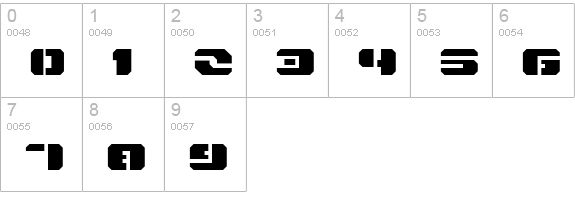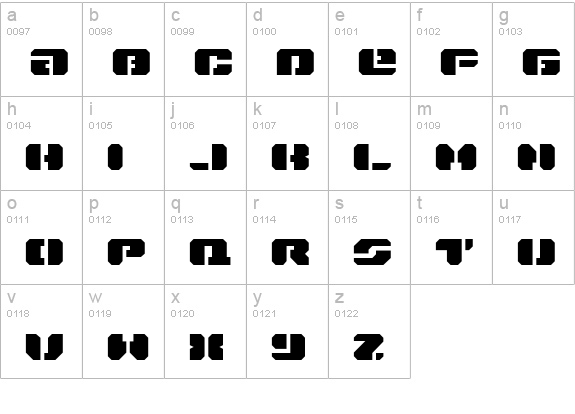
Dan Stargate Extra-expanded Font Details
Dan Stargate Extra-expanded is a distinctive, extended-width variant in the Dan typeface family \xE2\x80\x94 well suited to design and typography projects.
Introducing the Dan Stargate Extra-expanded font, a sleek and modern typeface that exudes sophistication and style. This font is perfect for making a bold statement in your designs, whether for branding, advertising, or creative projects. With its extra-expanded characters and clean lines, Dan Stargate is sure to catch the eye and leave a lasting impression. What sets this font apart is not only its striking appearance but also its versatility. From headlines to logos to body text, Dan Stargate shines in any context, adding a touch of elegance to your work. Whether you're a designer, marketer, or content creator, this font is a valuable addition to your toolkit. The best part? Dan Stargate Extra-expanded font is completely free to download at FontsMarket.com. Yes, you read that right - you can elevate your designs with this premium font without spending a dime. Don't miss out on this opportunity to enhance your projects with a font that combines style, functionality, and accessibility. Download Dan Stargate Extra-expanded font today and take your designs to the next level.